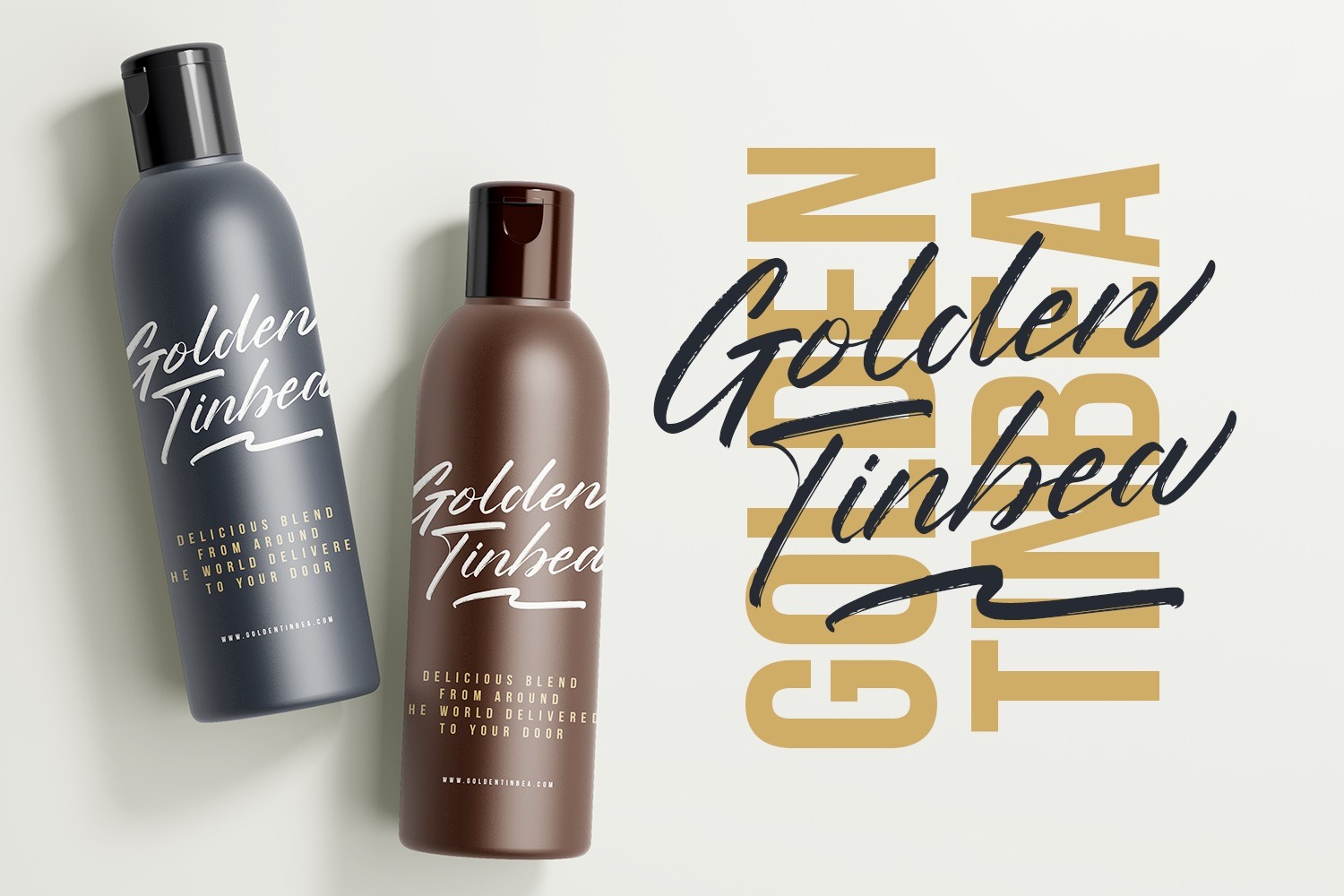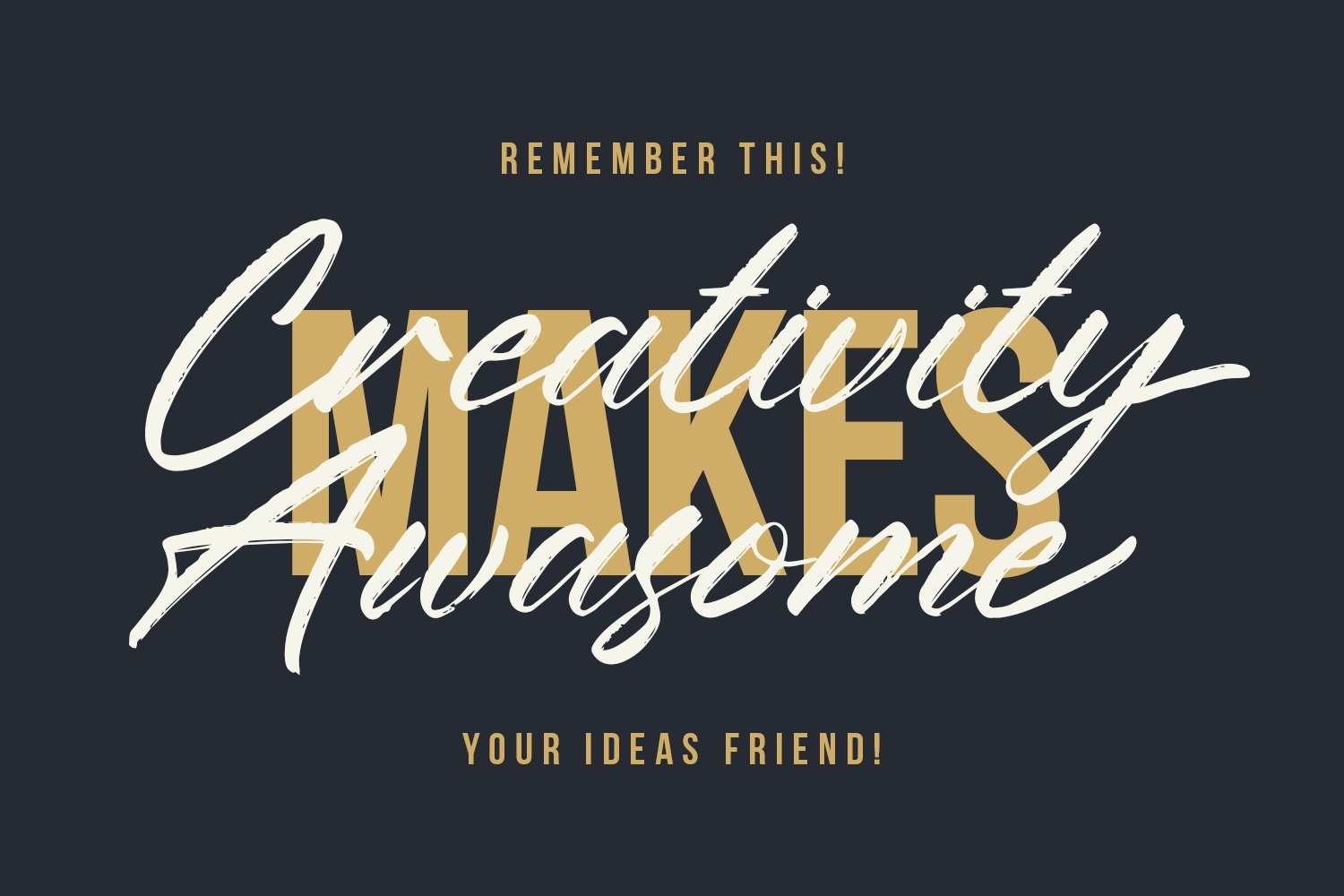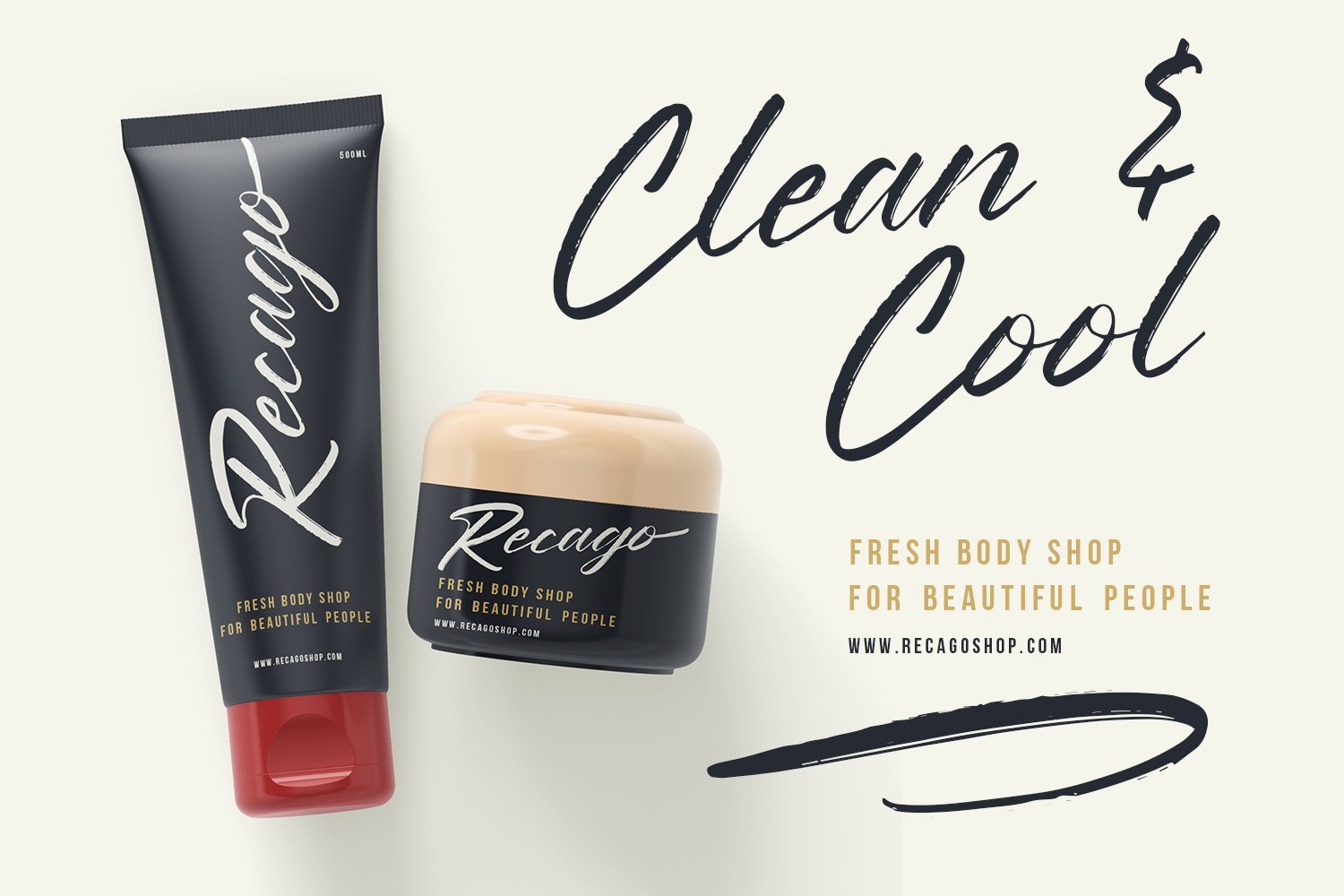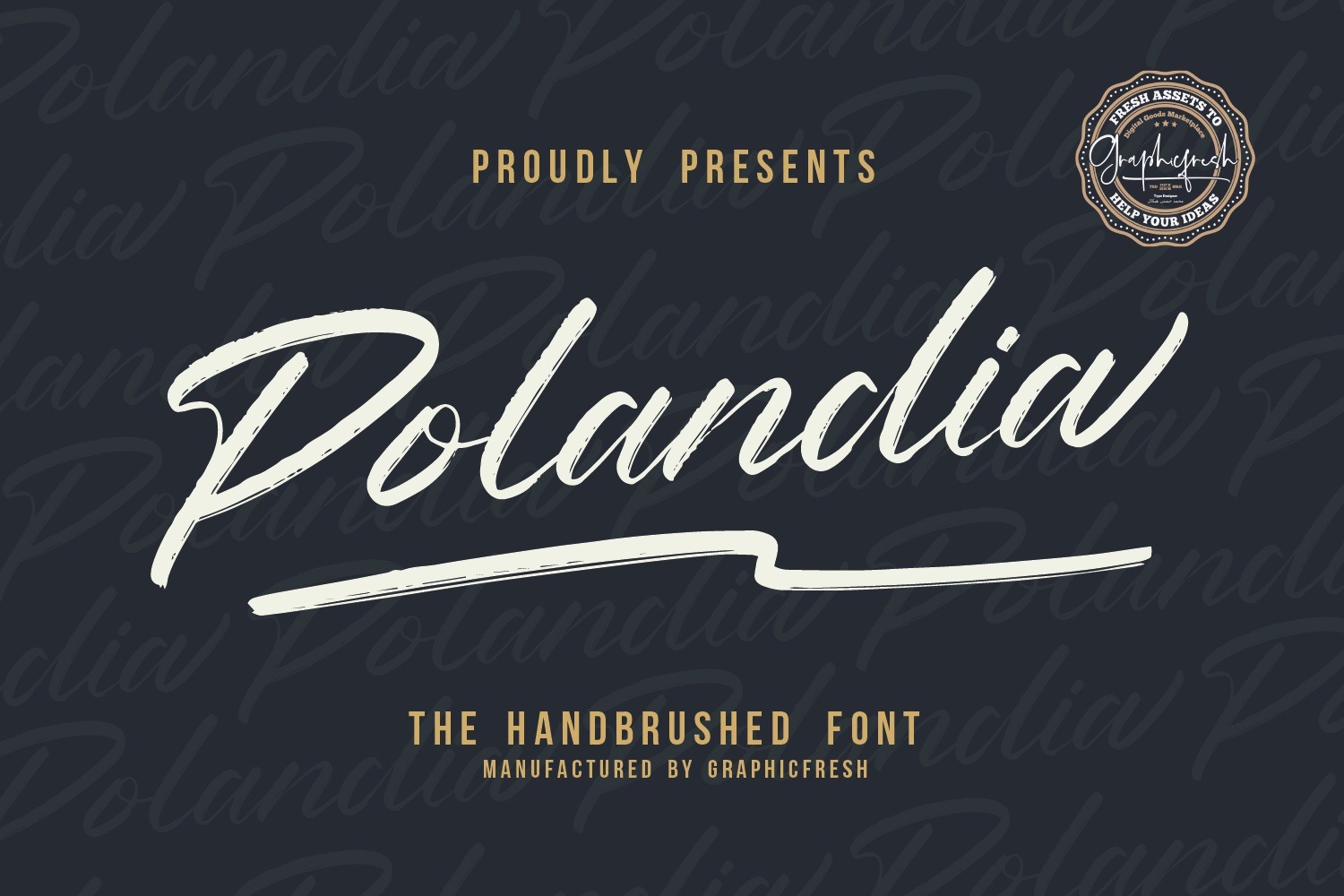
Polandia Brush Font
This is a beautiful brush script font created by Graphicfresh with an elegant calligraphic style. It comes with an elegant and modern style which is perfect to make any design stand out! This font is perfect for branding, wedding invites, magazines, mugs, business cards, quotes, posters, and more.